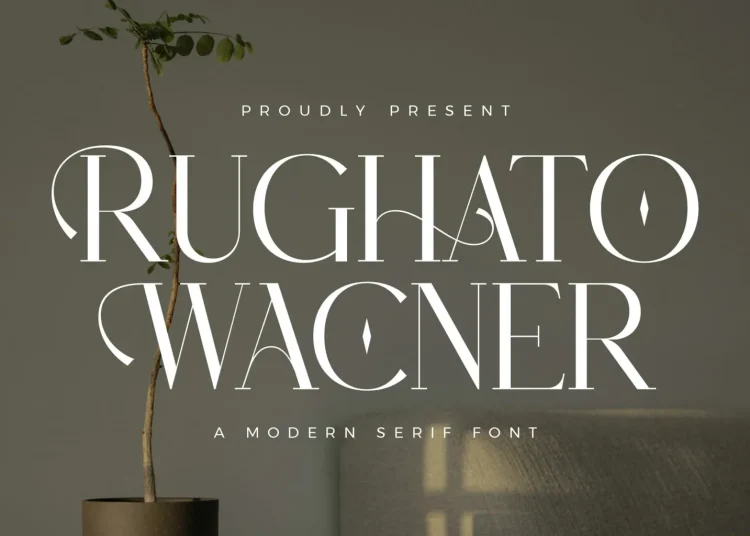
Rughato Wacner Font
RUGHATO WACNER is an elegant serif font that combines a distinctive style with a modern appearance. Its refined and sophisticated design makes it an ideal choice for a range of high-end applications, from logo design to fashion branding.
Key Features of RUGHATO WACNER:
Distinctive Serif Style: RUGHATO WACNER features a unique serif design that stands out with its contemporary elegance. The font’s carefully crafted serifs and balanced proportions contribute to its luxurious and sophisticated appearance.
Versatile Applications: This font is perfect for various uses, including logo design, movie and book titles, fashion brand clothing labels, magazine lettering, and quotes. Its versatile nature ensures it adds a touch of refinement and class to diverse design projects.
Sophisticated Aesthetic: With its elegant serif style, RUGHATO WACNER enhances sophisticated and luxurious branding efforts. It is particularly well-suited for projects that aim to convey a sense of high-end quality and modernity.
Ideal Uses for RUGHATO WACNER:
Logo Design: Create sophisticated and memorable logos with RUGHATO WACNER, adding a touch of elegance that enhances brand identity.
Movie and Book Titles: Use RUGHATO WACNER for movie and book titles to achieve a contemporary yet classic look that grabs attention.
Fashion Branding: Apply RUGHATO WACNER to fashion brand clothing labels and design materials, adding a refined and stylish element to your branding.
Magazine Lettering and Quotes: Incorporate RUGHATO WACNER into magazine lettering and quotes, providing a touch of elegance and sophistication to editorial and graphic designs.